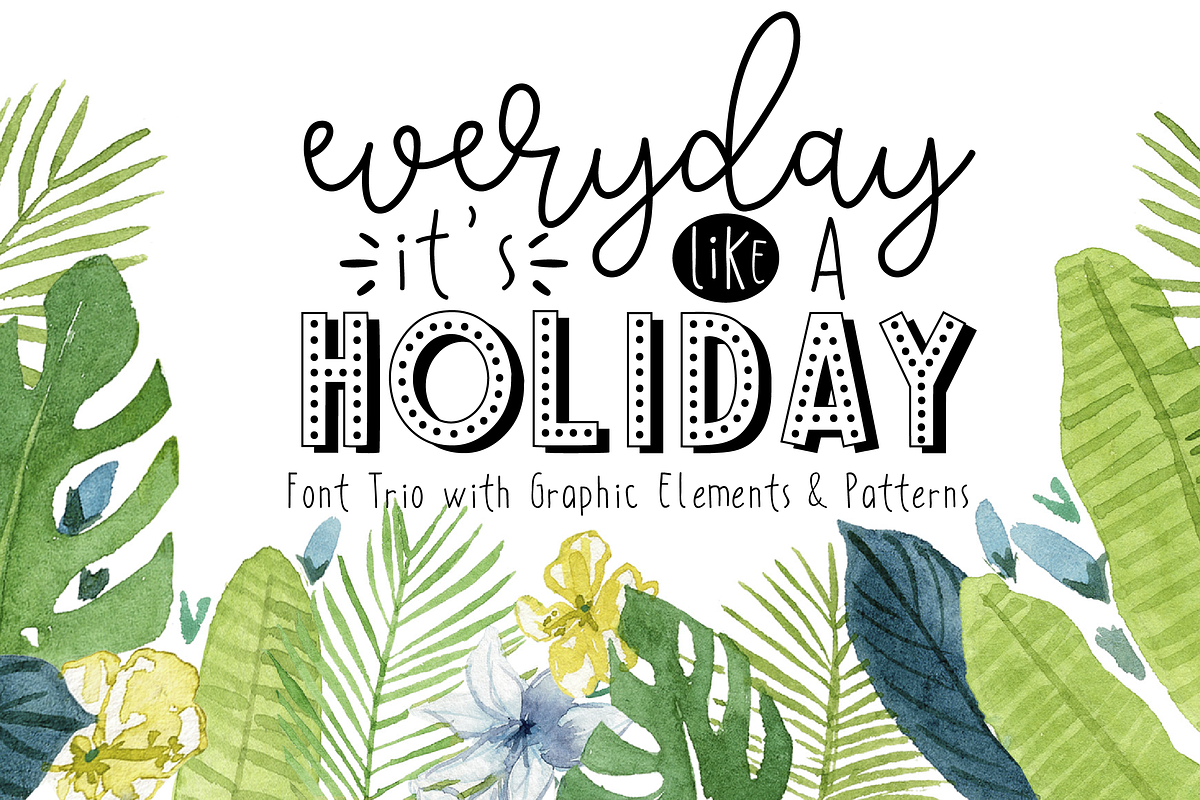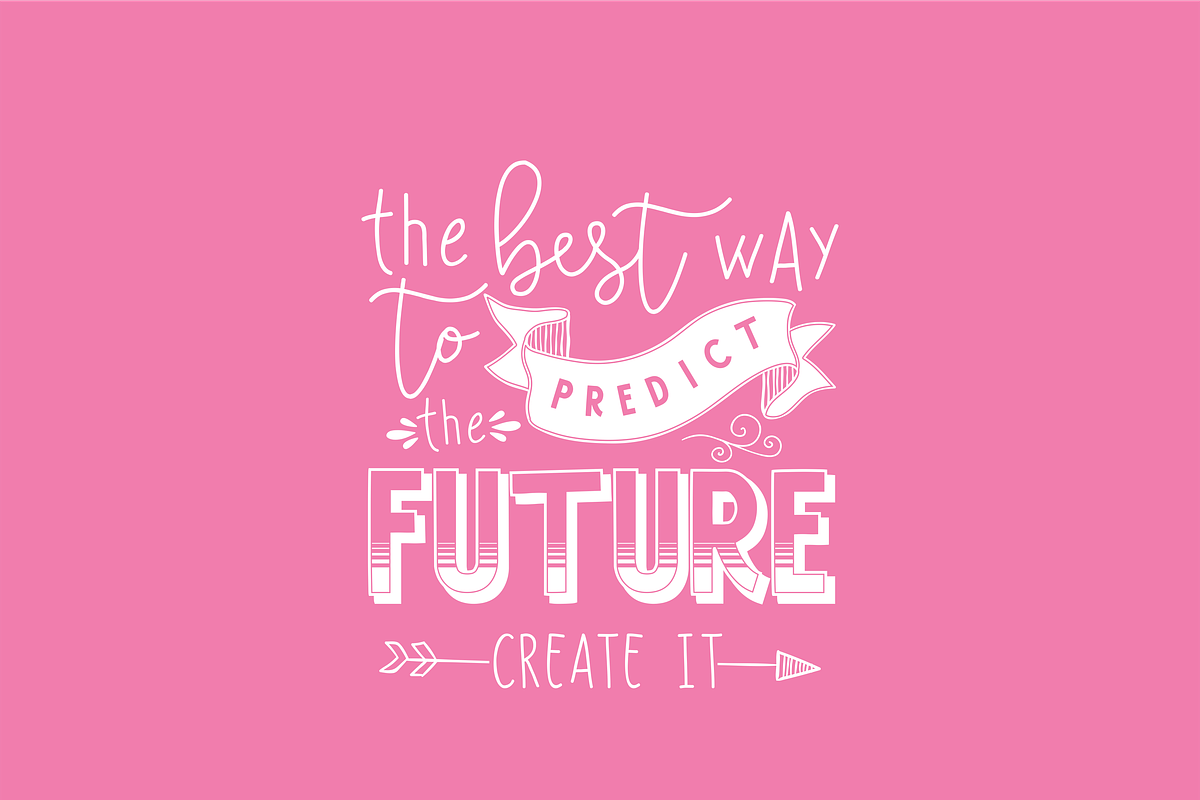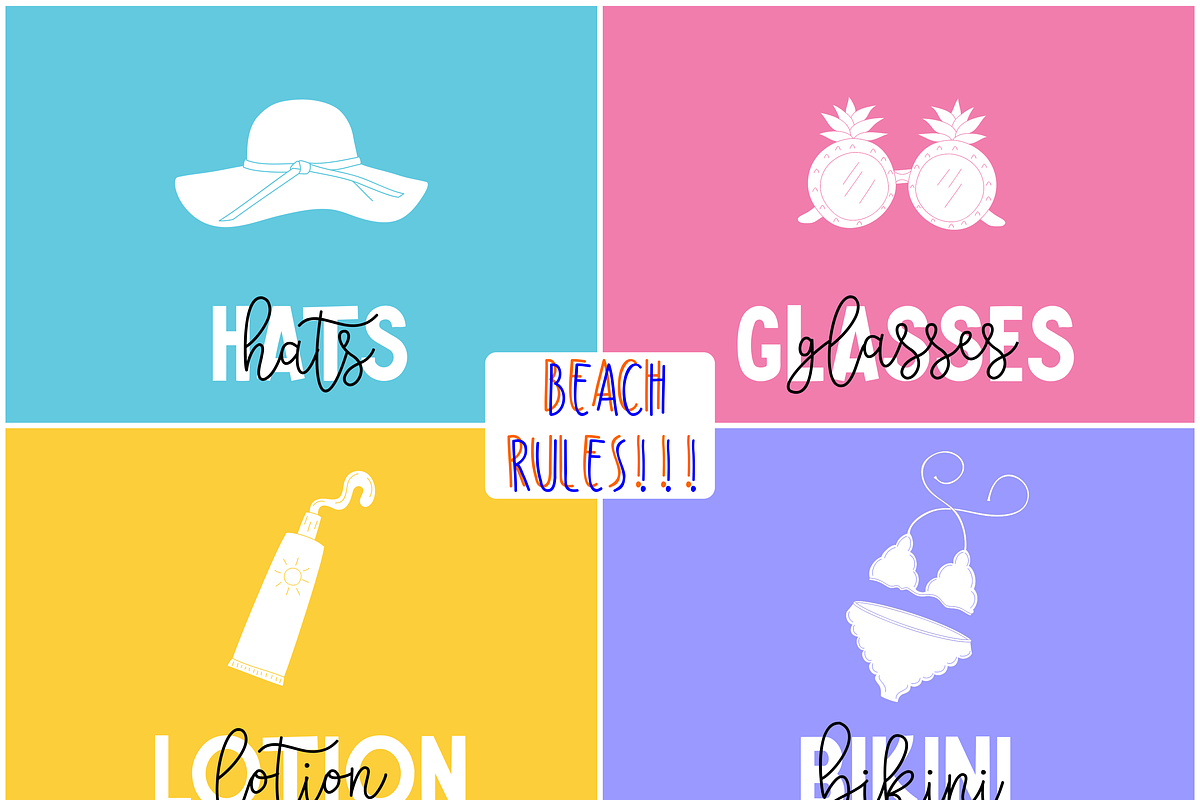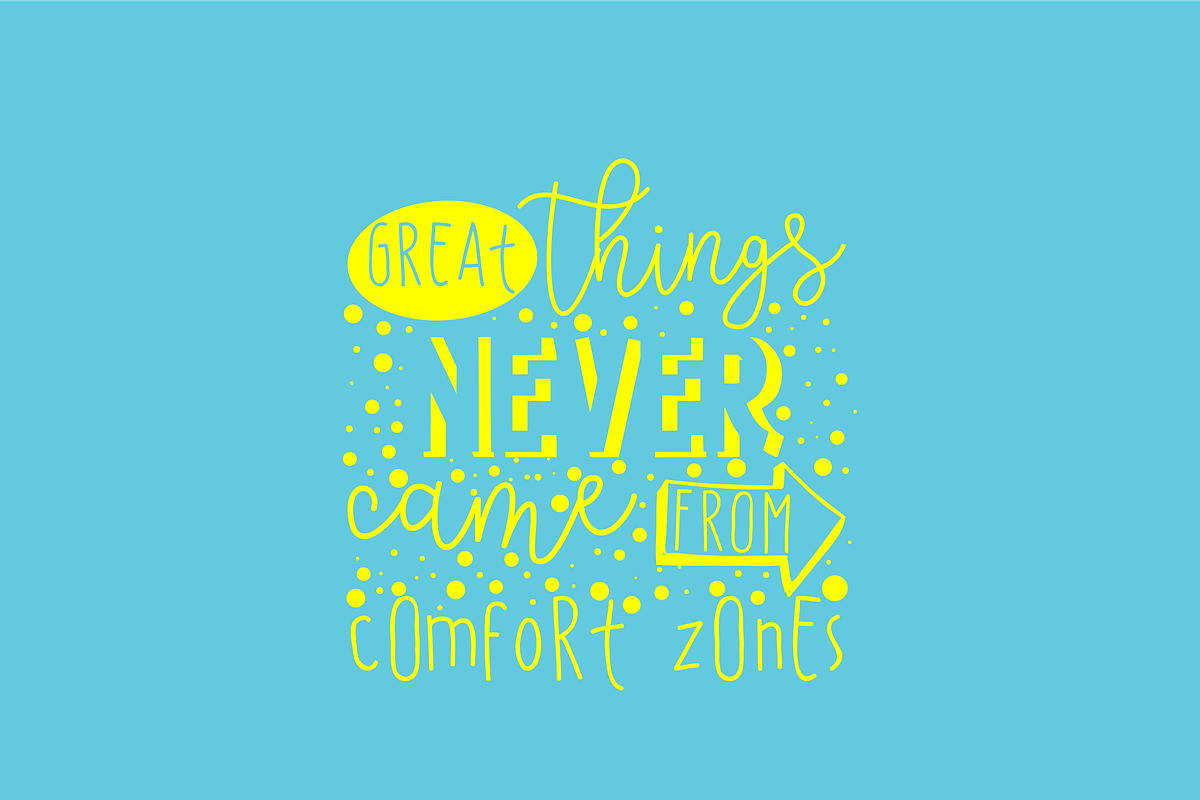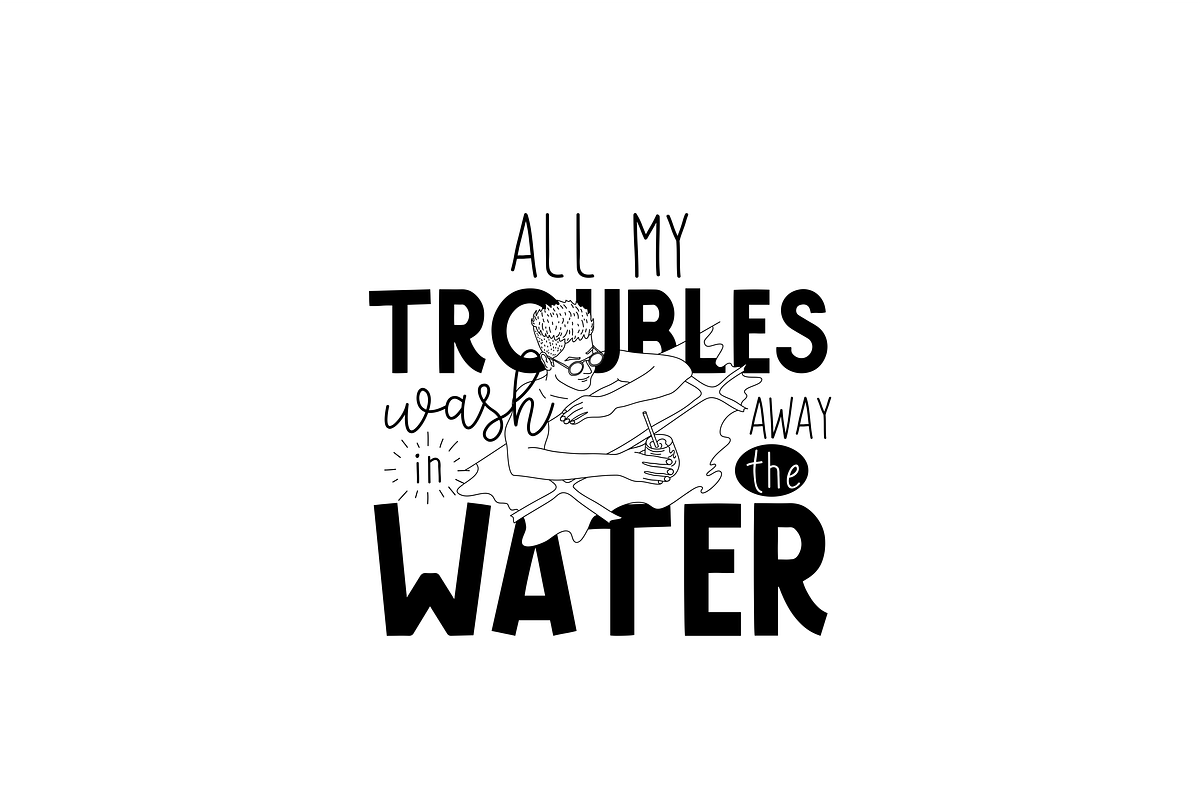
Font Trio - HITS (Holiday Package)
HITS it's a holiday package with 3 font, very suitable & editable graphic elements and patterns. Produced to give that hand made look, which adds more personality to your work. As a display typeface HITS best suitable for headlines, logotypes, printed quotes, posters, greeting card, invitation, t-shirt, and many more. To help you make stunning design, Holiday also came with extras graphic elements.
- HITS Sans 1
- HITS Sans 2
- HITS Script